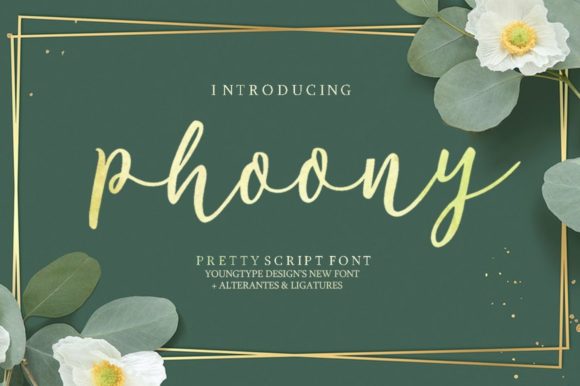
**Introducing Phoony Font: The Ultimate Script for a Dynamic Web Presence**
Unleash the captivating power of Phoony Font, an exquisite hand-brushed handwritten font that will transform your digital presence into a masterpiece. With its enchanting irregularities and captivating baseline, Phoony embodies the essence of handwritten elegance, ready to elevate your creations to new heights.
**The Epitome of Versatility: Endless Creative Possibilities**
Phoony is far more than just a font; it's a versatile chameleon that adapts seamlessly to any project. Its bold character lends itself perfectly to blog headers, where it will effortlessly command attention and leave a lasting impression. Whether you're crafting stunning posters for your next event or adding a touch of charm to wedding elements, Phoony's adaptability knows no bounds.
**Unleash Your Inner Fashionista: Apparel and Cover Designs Redefined**
For those seeking to make a statement in the world of fashion, Phoony offers a sartorial symphony. Design t-shirts and apparel that exude individuality and style, or create visually stunning cover books that beckon readers to delve into your literary creations. The possibilities are endless, empowering you to unleash your inner fashionista and leave an unforgettable mark.
**Business Cards That Impress: Forge Unforgettable Connections**
In the realm of business, first impressions matter. With Phoony, you can craft business cards that radiate professionalism and leave a lasting impression on potential clients. Its elegant strokes and captivating presence will ensure your cards stand out from the crowd, opening doors to new opportunities and forging unforgettable connections.
**Effortless Glyph and Swash Access: Creativity at Your Fingertips**
Phoony's PUA encoding empowers you with effortless access to a treasure trove of glyphs and swashes. This user-friendly feature allows you to experiment and create stunning designs with ease. Unleash your creativity without limitations, knowing that Phoony has your back every step of the way.
**Phoony Font: The Font That Inspires, Empowers, and Transforms**
More than just a font, Phoony is a catalyst for creativity, empowering you to express yourself with confidence and originality. Whether you're a seasoned designer or just starting your artistic journey, Phoony will guide you along the path to success, transforming your projects into works of art.